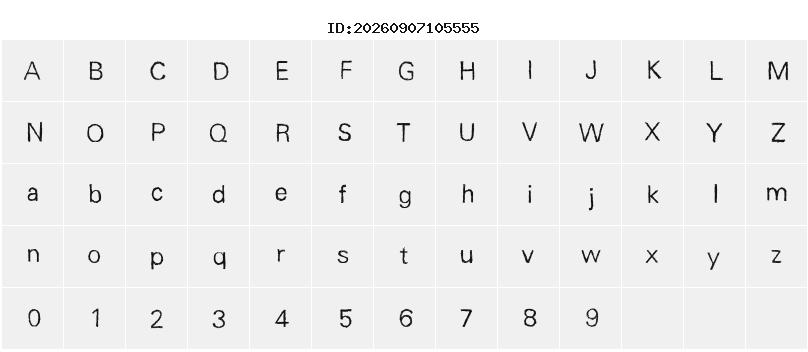
Unisketchlightlimited Preview
• Designer: Ursula Hitz
About Unisketchlightlimited.ttf
Unisketchlightlimited.ttf is a modern, elegant sans-serif font designed for ultimate readability and visual harmony. Perfect for branding, headlines, web design, and print materials.